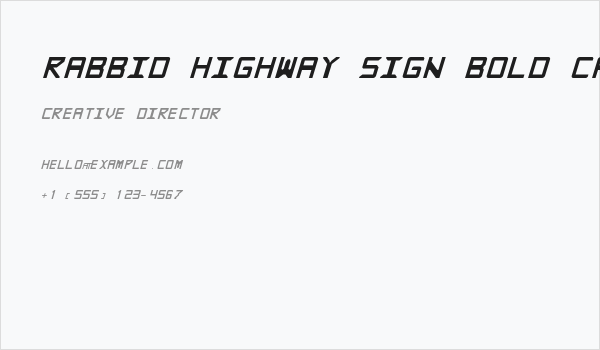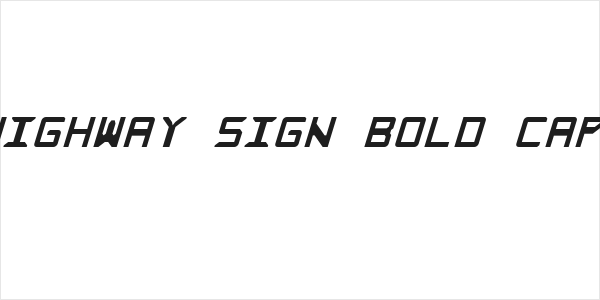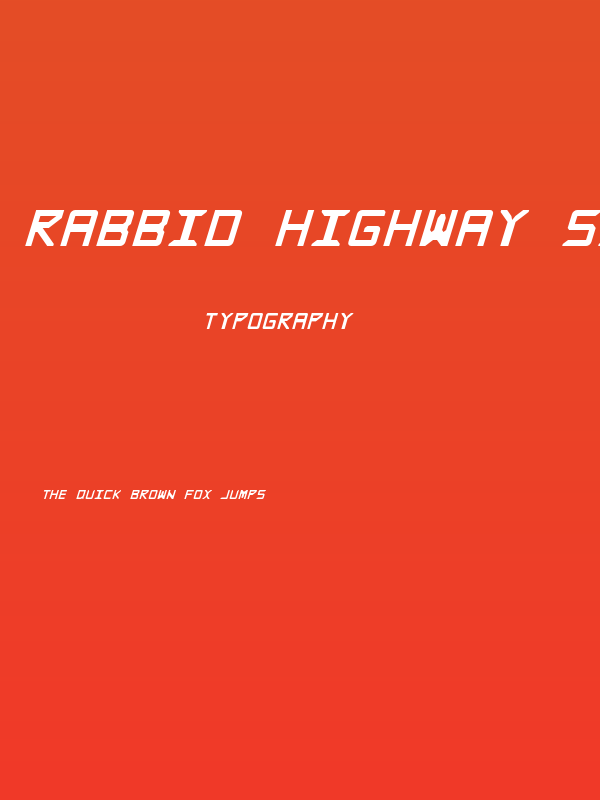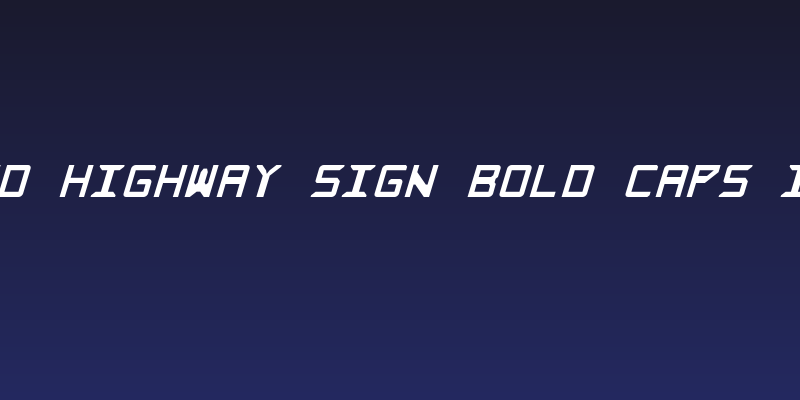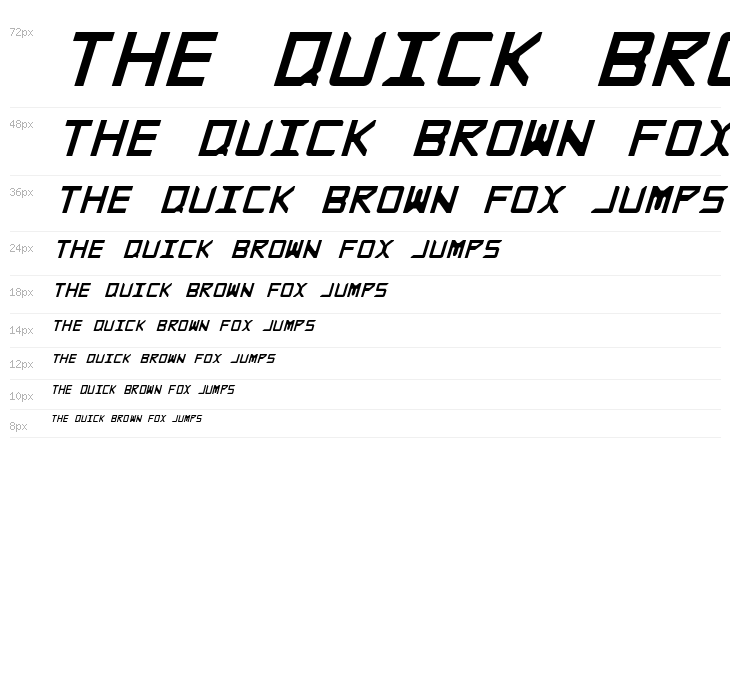
Rabbid Highway Sign Bold Caps Italic Font
Rabbid Highway Sign Bold Caps Italic Description
This font features a bold and italicized style with a distinct geometric and angular design. The uppercase letters are uniform in height, creating a cohesive and structured appearance. The characters have a futuristic and dynamic feel, with sharp edges and a slight slant that adds a sense of motion. The numbers and special characters maintain the same bold and angular aesthetic, ensuring consistency across all glyphs. The font's strong presence makes it suitable for impactful and attention-grabbing designs.
| Proposed Projects | Ideal for highway signage, futuristic branding, sports team logos, and dynamic poster designs. |